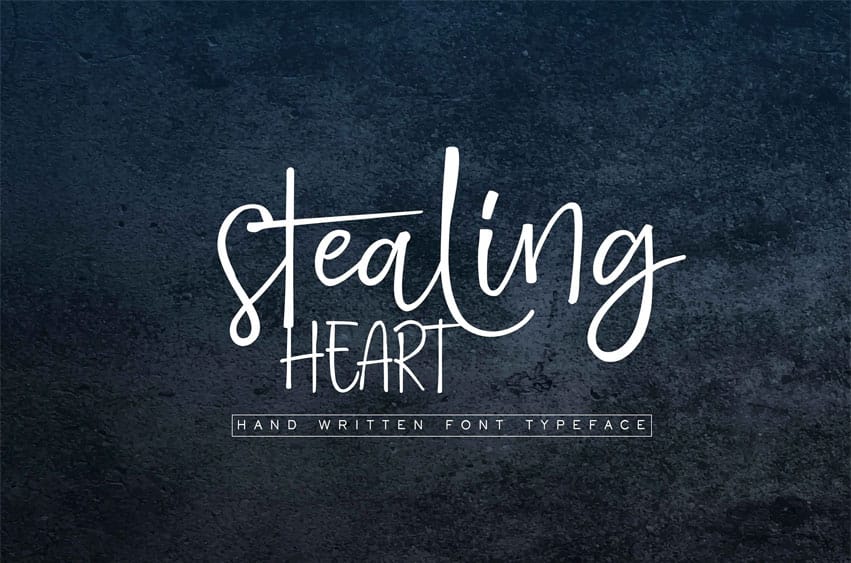
Stealing Heart Font is a beautiful signature font, This Font will look gorgeous on all your designs, invitation, book, branding materials, logo’s, t-shirt, poster and all project design other.